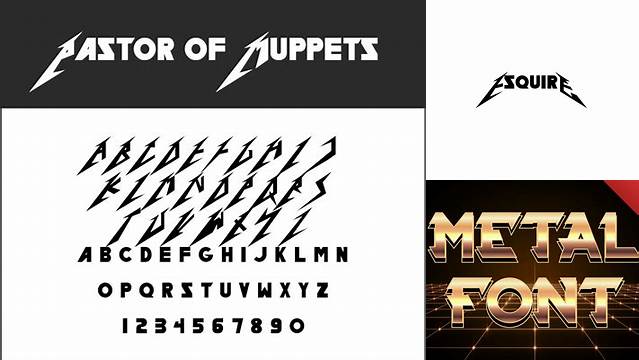
Free 3D Metallica Font Generator: Rock Your Designs
Hey guys! Are you ready to rock and roll? Do you want to infuse your designs with the raw energy and iconic style of Metallica? Well, you've come to the right place! In this article, we're diving deep into the world of 3D Metallica font generators, and the best part? We're focusing on the free ones! That's right, you can channel your inner metalhead without spending a dime. We'll explore what makes this font style so unique, where you can find these awesome generators, and how to use them to create killer designs that scream Metallica. So, grab your air guitar and let's get started!
What Makes the Metallica Font So Iconic?
The Metallica logo, with its sharp, angular, and almost menacing letterforms, is instantly recognizable. It’s not just a font; it's a symbol of a genre, a generation, and a band that has defied expectations for decades. The font, often referred to as a modified version of the Lords of Metal font, evokes a sense of power, aggression, and rebellion. The 3D effect adds another layer of depth and intensity, making it even more visually striking. It's like the font itself is bursting out, ready to unleash a sonic assault. This is why it's so popular for anything aiming to convey a similar feeling – from band logos and album art to gaming graphics and edgy marketing materials.
The distinct characteristics of the Metallica font contribute significantly to its iconic status. The sharp, pointed serifs and the slightly distressed texture give it a raw, almost hand-forged feel. The letterforms are bold and assertive, demanding attention and conveying a sense of uncompromising strength. When rendered in 3D, these qualities are amplified, creating a visually impactful and memorable design. The font's association with Metallica, one of the most influential metal bands of all time, further cements its place in popular culture. The band's music, known for its technical complexity, aggressive energy, and dark themes, is perfectly mirrored in the font's aesthetic. It’s a match made in metal heaven! Using this font can instantly inject your project with a dose of rock and roll attitude. It’s a surefire way to grab attention and make a statement.
Moreover, the Metallica font's versatility, despite its strong character, is another reason for its lasting appeal. While it’s primarily associated with heavy metal and rock music, it can also be used effectively in other contexts where a sense of strength, power, and intensity is desired. Think about movie posters, video game titles, and even branding for products aimed at a younger, more rebellious audience. The 3D rendering adds another dimension to this versatility, allowing for creative experimentation with lighting, shadows, and textures. You can make the font look like it's forged from steel, carved from stone, or glowing with an inner fire. The possibilities are endless!
Finding Free 3D Metallica Font Generators
Okay, so you're sold on the Metallica font. Now, where do you find these magical generators that can transform your text into a 3D metal masterpiece without costing you anything? The good news is, the internet is brimming with options! However, it’s crucial to know where to look and what to expect. Many websites offer font generators, but not all of them are created equal. Some might have limited features, while others might bombard you with ads or even worse, try to install malware on your computer. Safety first, guys!
One of the best places to start your search is with a simple Google search. Try keywords like "free 3D Metallica font generator" or "Metallica logo generator online." You'll likely find a plethora of websites claiming to offer this service. However, be discerning. Look for websites that have a clean, professional design and clear terms of service. Avoid sites that look shady or ask for excessive personal information. A reputable font generator will typically allow you to input your text, choose from a few customization options (like color and size), and then download the generated image or font file.
Another great resource is online design communities and forums. Websites like Behance, Dribbble, and Reddit often have threads where users share their favorite tools and resources. You might find someone recommending a specific font generator or even offering a free downloadable font that closely resembles the Metallica logo. These communities are also great places to get inspiration and see how others are using the font in their designs.
Keep an eye out for websites that offer trial versions of their paid font generators. Sometimes, you can get a taste of the premium features for a limited time, allowing you to create some truly stunning 3D Metallica text. Even if you don't end up paying for the full version, the trial period can be a great way to experiment and explore different design possibilities. Remember to always read the fine print and understand the terms of the trial before signing up.
How to Use a 3D Metallica Font Generator: A Step-by-Step Guide
Alright, you've found a 3D Metallica font generator that looks promising. Now what? Don't worry, it's usually a pretty straightforward process. Most of these generators follow a similar workflow, making it easy to create your metal-inspired text. Let's break it down step-by-step:
Choose Your Generator: First things first, select the font generator you want to use. As we discussed earlier, make sure it's a reputable website with a clean interface. Once you've made your choice, navigate to the generator's page. You'll typically find a text input box and some customization options.
Enter Your Text: This is where the magic begins! Type in the text you want to transform into 3D Metallica glory. It could be your band's name, a catchy slogan, or even just your own name. Remember to keep it relatively short and punchy for the best visual impact. Long strings of text might not look as good in this style.
Whether you're designing a band logo, creating gaming graphics, or crafting killer social media content, the 3D Metallica font is a surefire way to make a statement. So go ahead, experiment, have fun, and unleash your inner rock star! Now go forth and make some metal!